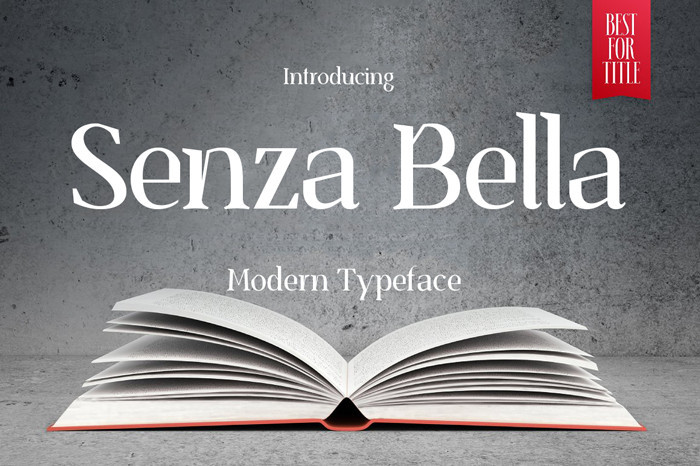
Senza Bella Font Family
Hello I’m really excited to introduce Senza Bella Font Family. Jowo designed and shared by Ryan Williamson. Senza Bella is a future style typeface font clean and elegant with 6 style. suitable to create any branding, product packaging, invitation, qoutes, t-shirt, label poster etc.